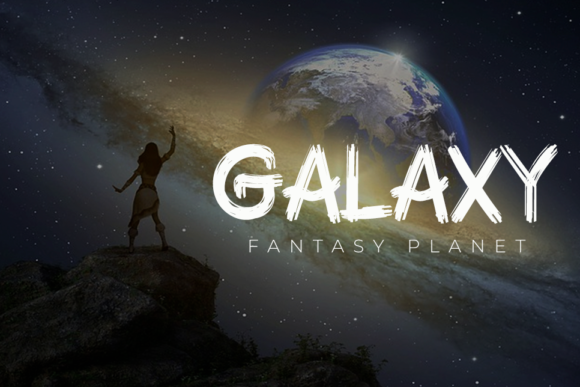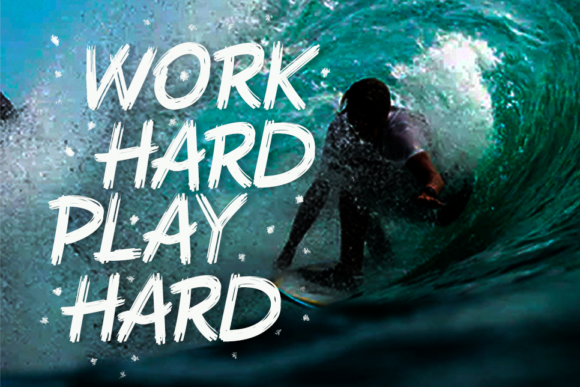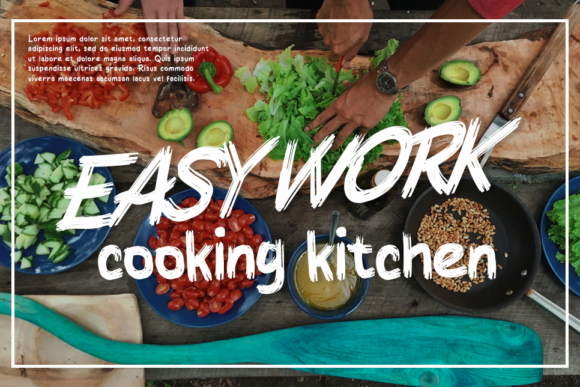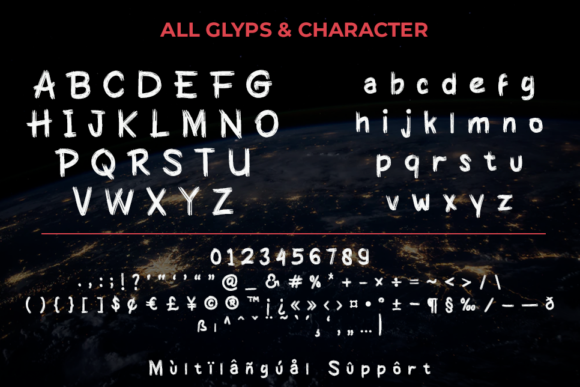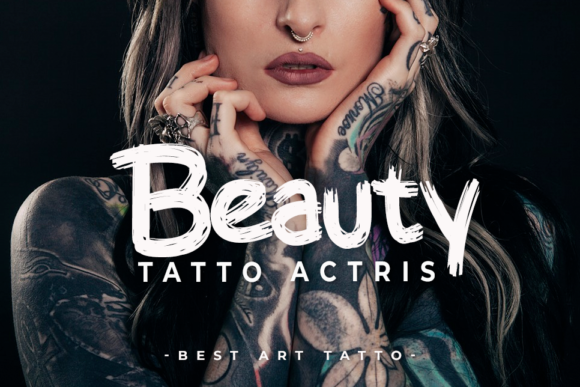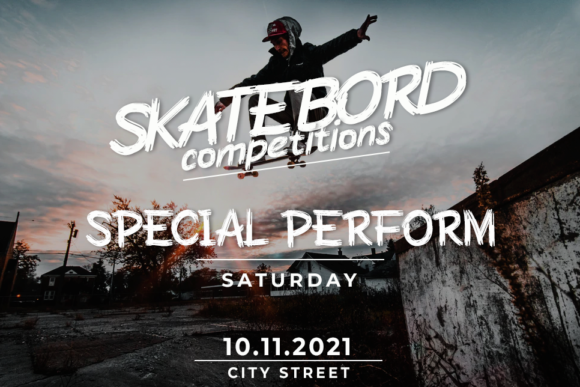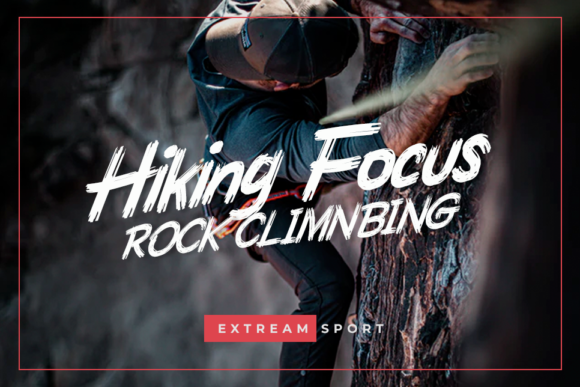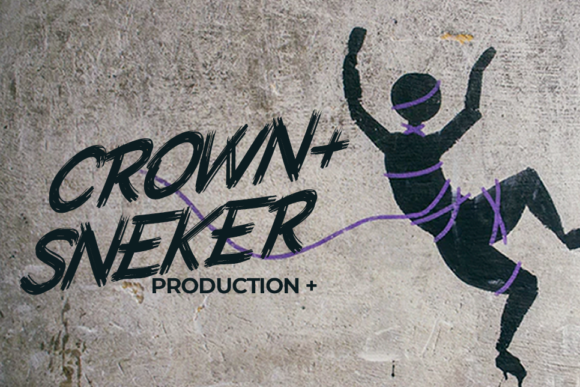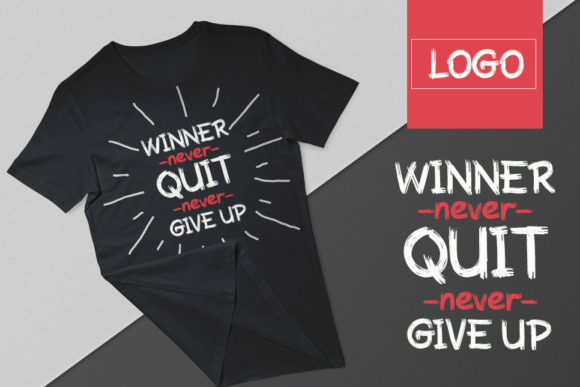
Rawyfi Font
About Rawyfi Font
Rawyfi is a handwritten brush font with a unique, quirky and versatile style. It is perfect to use in all your design projects, be it logos, signatures, labels, packaging designs, quotes, heading titles, movie titles and much more. No matter the setting, Rawyfi will make your text stand out!